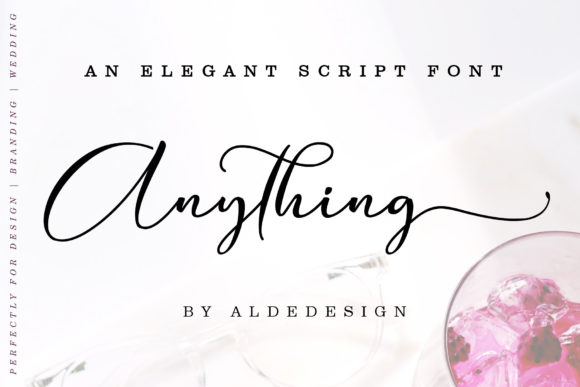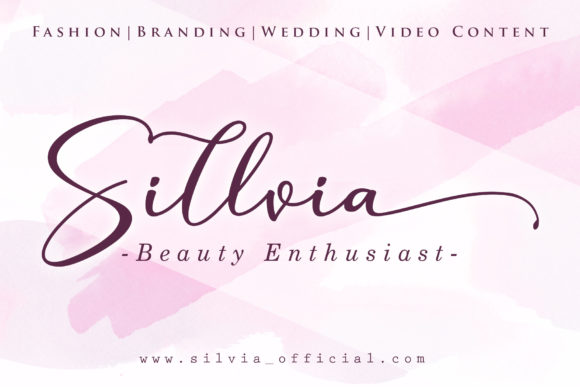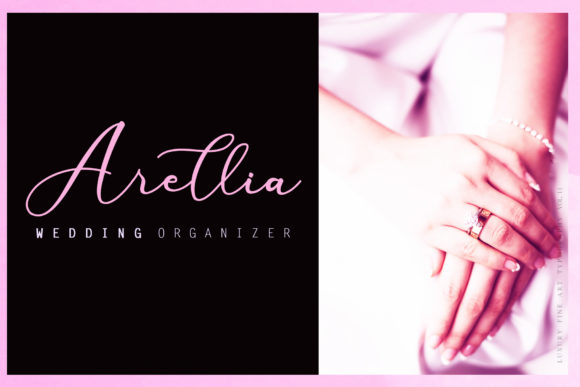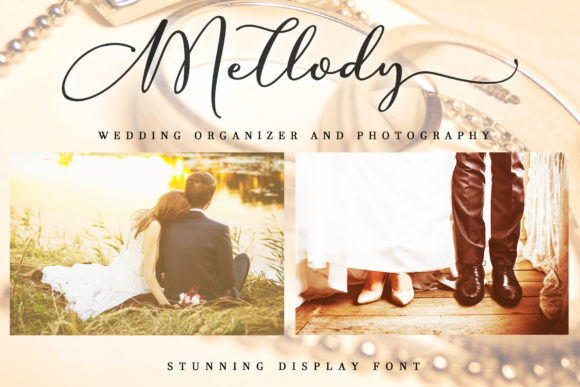
Anything Script Font
About the Anything Script Font
Presenting Anything Script Font, a unique and stylish typeface that will make your work stand out. Anything is a stunning script with a bold feel. Get inspired by its authentic style!
Its bold, expressive strokes make Anything Script Font ideal for headlines, short impactful statements, and branding elements where a strong visual presence is desired. It excels in applications like logos, invitations, and short-form promotional materials. However, its decorative nature makes it unsuitable for body text or long paragraphs; readability suffers at smaller sizes.
Consider pairing Anything Script with a clean sans-serif like Open Sans for a balanced contrast, or a geometric sans-serif like Montserrat for a modern feel. For a more luxurious effect, a subtle serif like Lora can complement its boldness. Avoid pairing it with other highly decorative scripts as this can create visual clutter.
Anything Script projects a confident, almost rebellious energy, best suited for brands aiming for a strong and memorable identity. Its authentic style is perfect for conveying a sense of individuality and high-end quality.
Anything Script Font Usage Examples
Anything Script Font Example